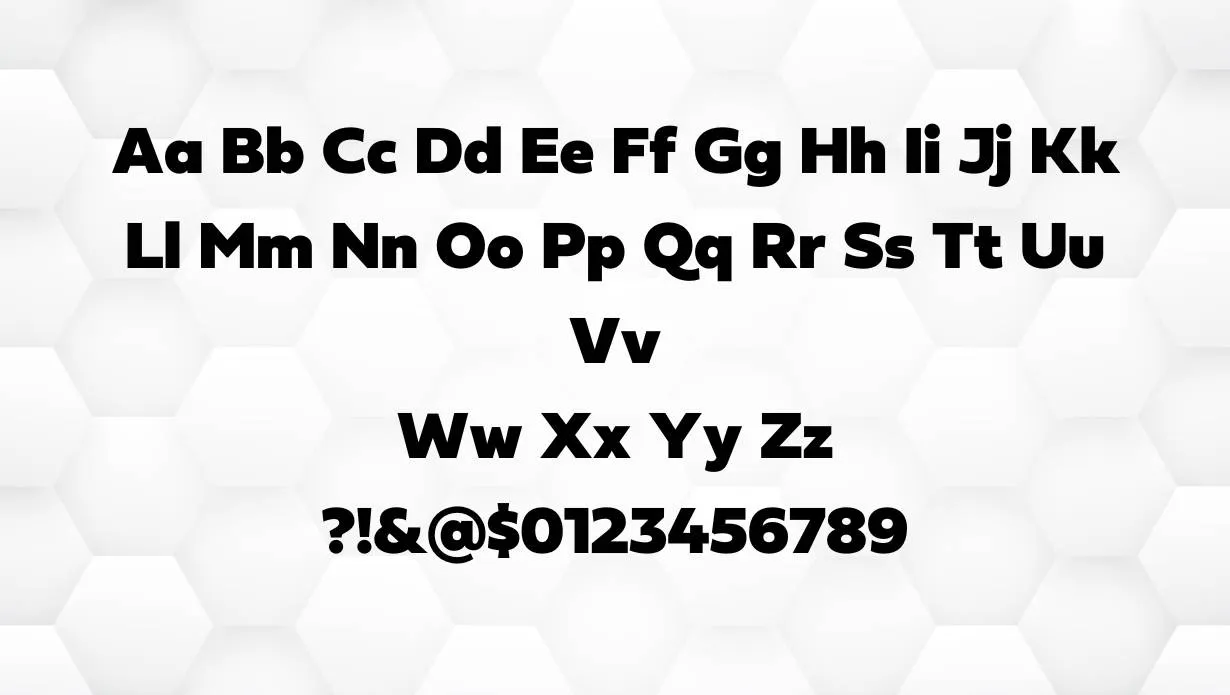
| Name | Fieldwork Font |
| Designer | Vicente Lamónaca |
This font’s energetic and vibrant style adds a sense of movement and action to any design it graces. Fieldwork Font breathes life into the text, infusing it with energy and movement, perfect for designs that need to convey dynamism.